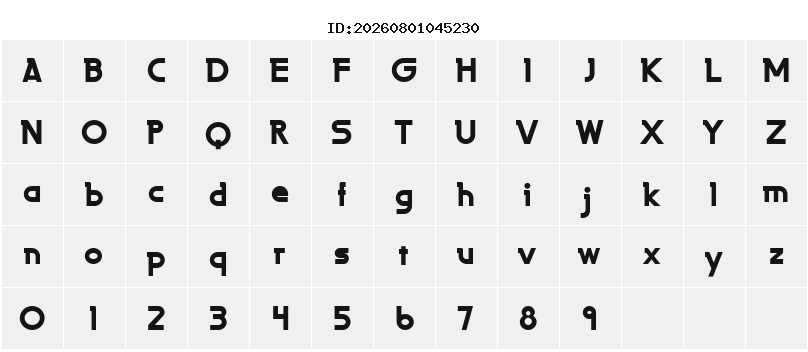
• Font Name: LaPerutaFLF
About LaPerutaFLF.ttf
LaPerutaFLF.ttf is a modern, elegant sans-serif font designed for ultimate readability and visual harmony. Perfect for branding, headlines, web design, and print materials.